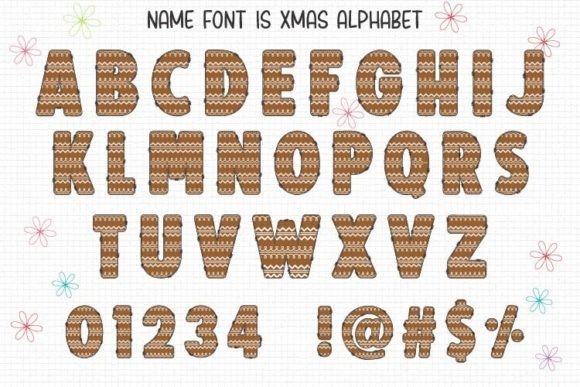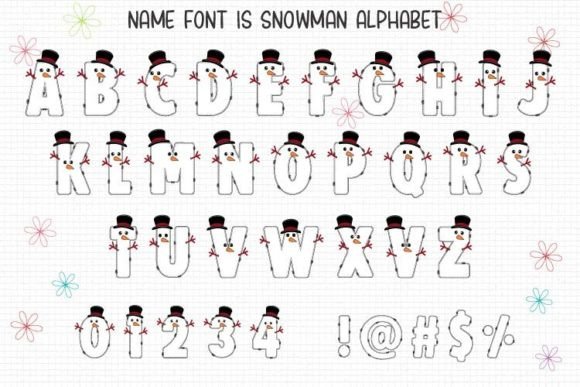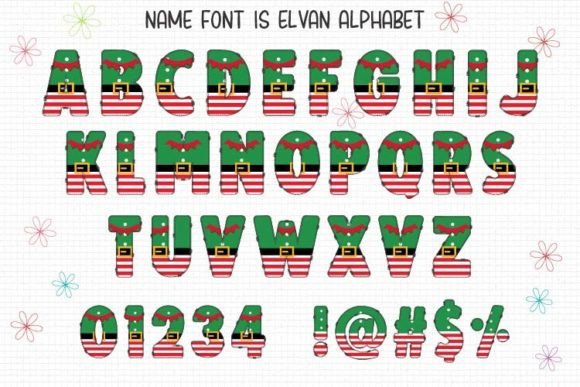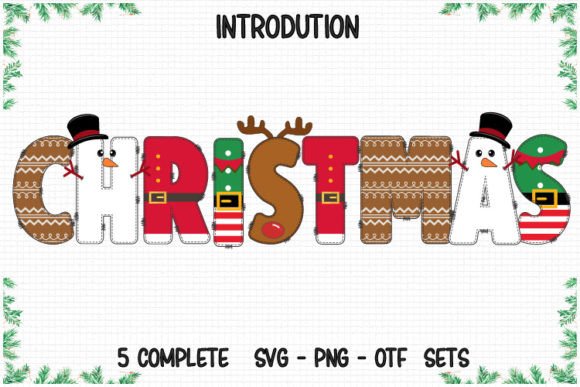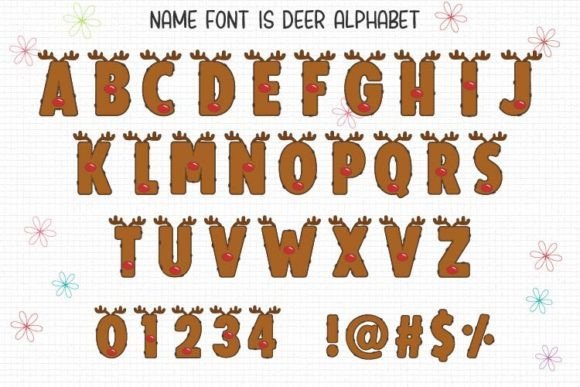
Xmas Doodle Font
Xmas Doodle is a cute and festive decorative color font. It will look amazing on all your Christmas-themed designs, shirts, crafts, and cards and will instantly enhance your projects!